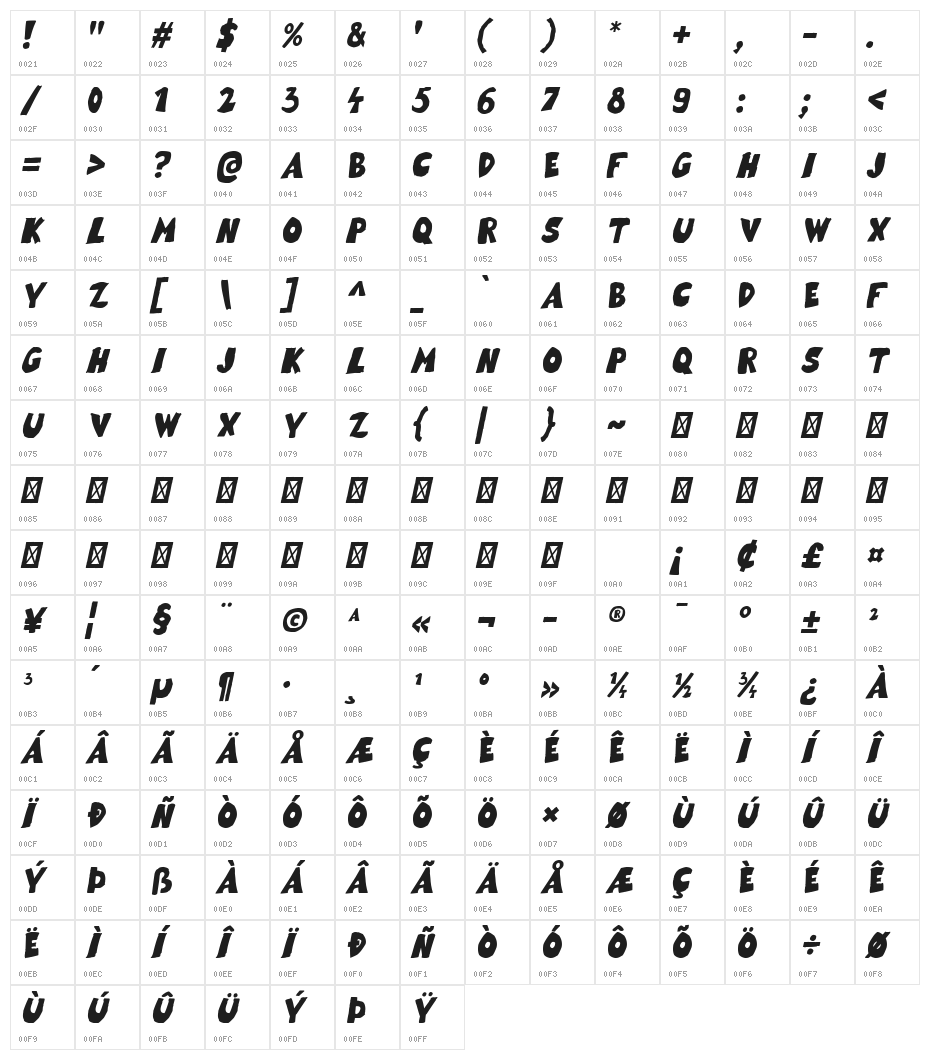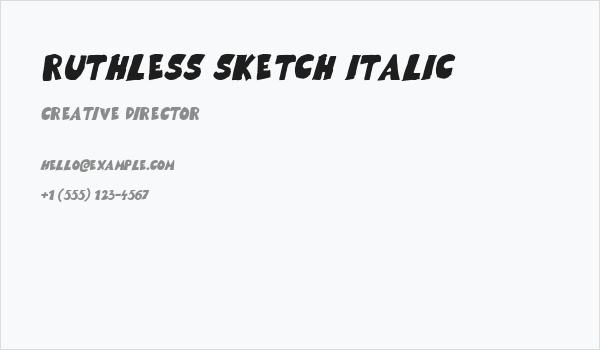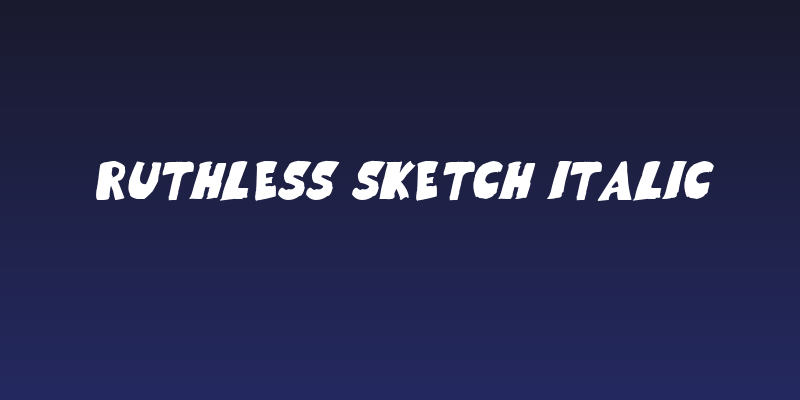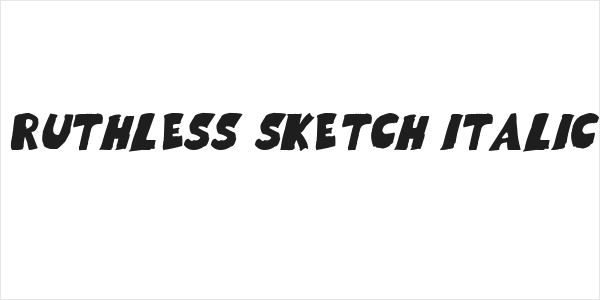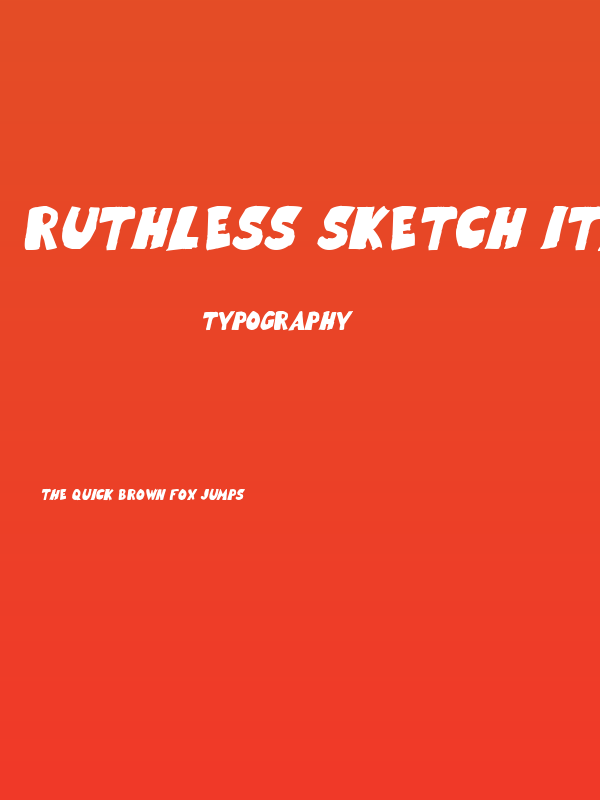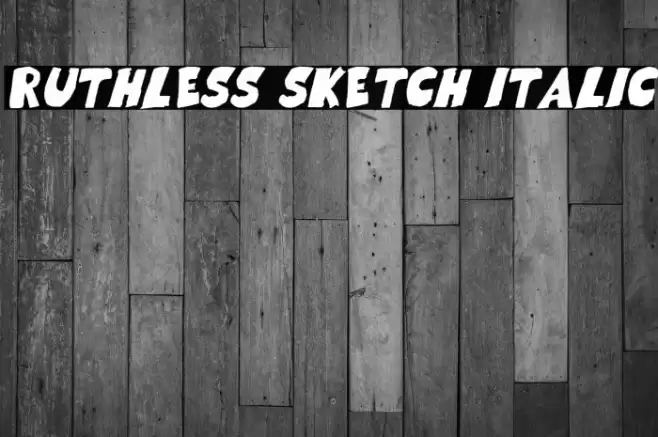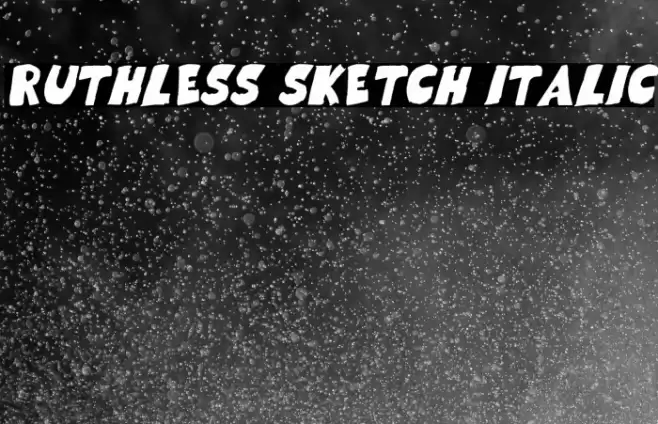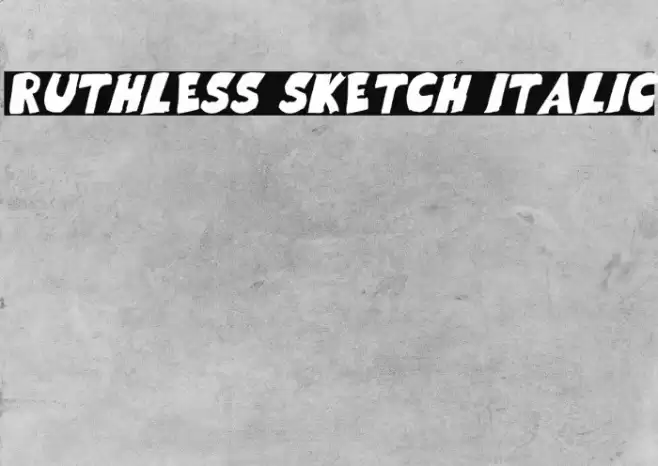
Ruthless Sketch Italic Font
Ruthless Sketch Italic Description
This font exudes a bold and dynamic presence with its sketch-like, italicized style. The characters are crafted with a rough, hand-drawn appearance, giving them a unique and artistic flair. The uppercase and lowercase letters maintain a consistent slant, enhancing the italic effect. The numbers and special characters follow the same design ethos, ensuring a cohesive look across all elements. The strokes are thick and uneven, adding to the rugged charm of the font. This style is perfect for projects that require a touch of creativity and boldness.
| Proposed Projects | Ideal for posters, artistic designs, branding, and any project needing a creative edge. |